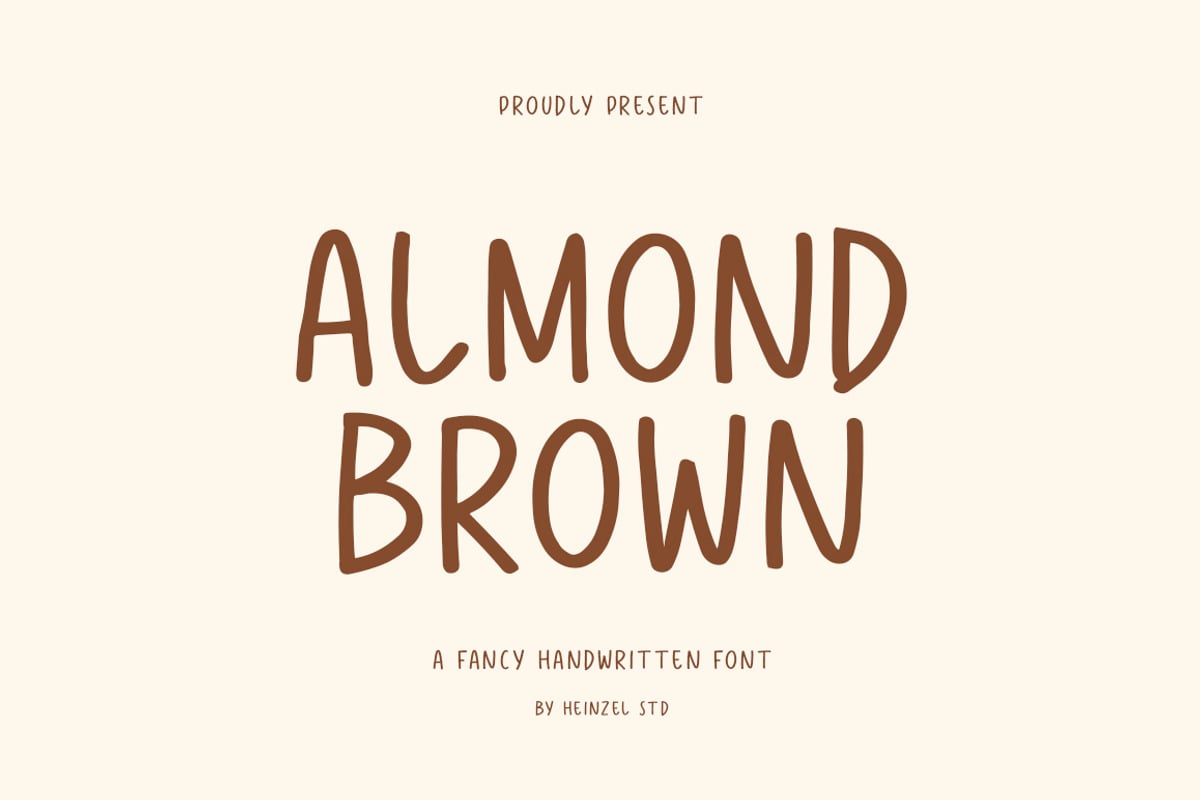
Almond Brown Handwritten Font
Almond Brown is the handwritten font that brings timeless elegance and modern charm to every design it touches.
With its incredibly distinct all-caps style, Almond Brown strikes the perfect balance between casual warmth and refined sophistication. Whether you're crafting wedding invitations, thank-you cards, greeting cards, or bold brand identities, this typeface delivers a handcrafted feel that instantly elevates your work.
It looks stunning across a wide range of applications, including logos, business cards, social media graphics, magazines, branding, and marketing materials — anywhere a genuine handwritten touch makes an impact.
- All Caps Glyphs
- Regular and Bold versions
- Numerals and punctuation
- Alternates and ligatures
- Multilingual language support (21 languages)
Supported Languages: Afrikaans, Basque, Breton, Catalan, Danish, Dutch, English, Finnish, French, Gaelic (Irish, Scots), German, Icelandic, Indonesian, Irish, Italian, Norwegian, Portuguese, Saami (Southern), Spanish, Swahili, and Swedish.